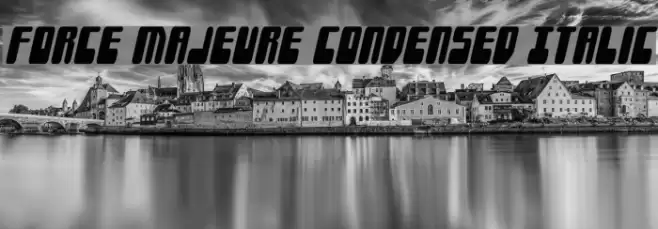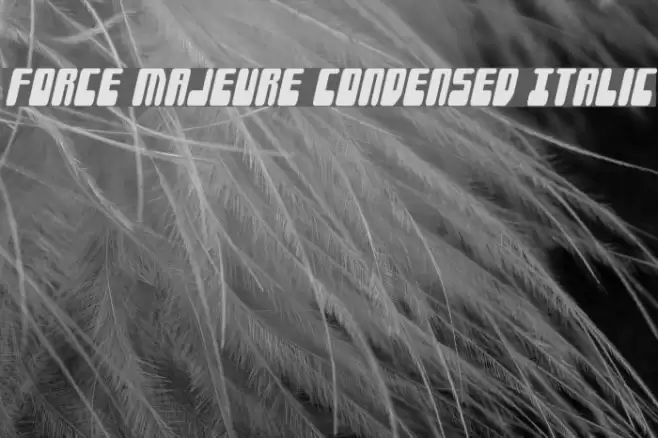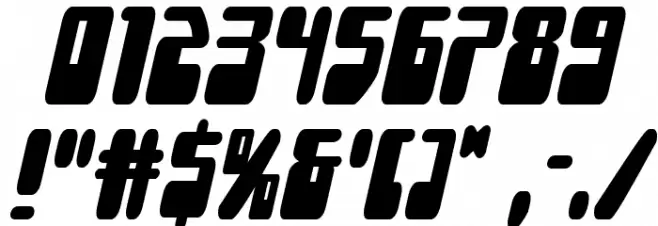
Force Majeure Condensed Italic Font
Force Majeure Condensed Italic Description
This font exhibits a bold and dynamic style with a condensed and italicized form. The characters are robust and impactful, featuring a strong geometric influence with rounded edges that soften the overall appearance. The uppercase and lowercase letters maintain a consistent weight, providing a harmonious look across the alphabet. The numerals are equally bold, ensuring readability and uniformity. Special characters are designed to match the boldness and style of the letters, making them suitable for attention-grabbing designs. The condensed nature of the font allows for efficient use of space, making it ideal for headlines or titles where space is limited but impact is necessary.
A bold, condensed, and italicized font with a geometric and dynamic style from Fancy fonts.
- Proposed Projects: Ideal for use in posters, headlines, branding, and advertising where a strong visual impact is desired.